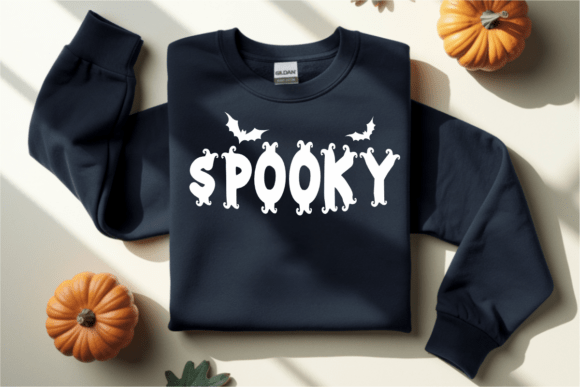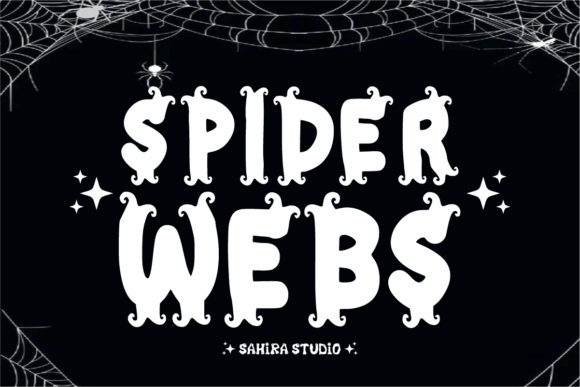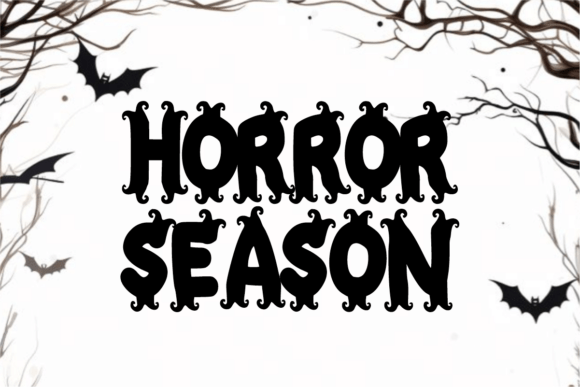
Introduction to Halloween Magic Font
Introducing β€œHalloween Magic,” a unique and modern Halloween cartoon font consisting of only uppercase letters.
Each character is spooky, unique, and cute, making it easily recognizable Whatever the topic, this font will be a great addition to your font library, as it has the potential to enhance any creation.
Key Features of Halloween Magic Font
Why Choose Halloween Magic Font?
Halloween Magic Font offers exceptional quality and versatility, making it a valuable addition to your design toolkit. Whether you’re creating for personal projects or commercial use, Halloween Magic Font delivers professional results.